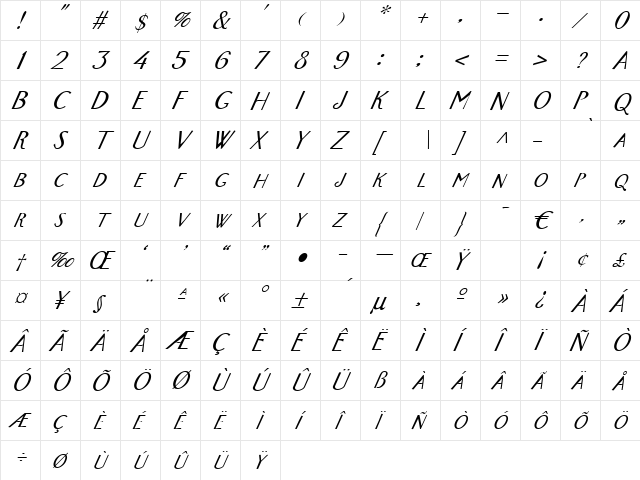
LausanneItalic Regular
Design Context for LausanneItalic Typeface
LausanneItalic takes a measured approach to typography — its balanced proportions and neutral character make it a reliable workhorse for both digital and print work. The dynamic lean of this cut emphasises speed and emphasis in any layout.
Pro Tip: Use LausanneItalic for emphasis, pull quotes, and subheadings where its slanted energy can add rhythm to the layout.